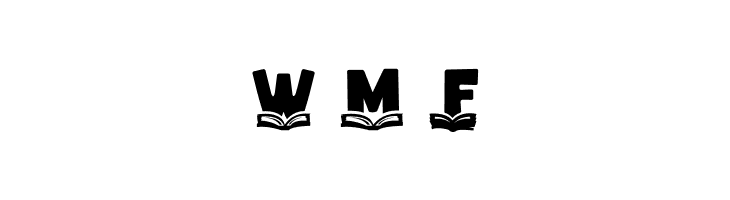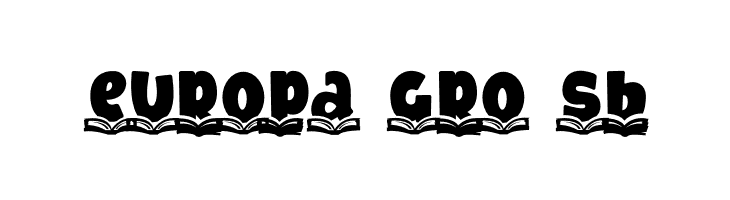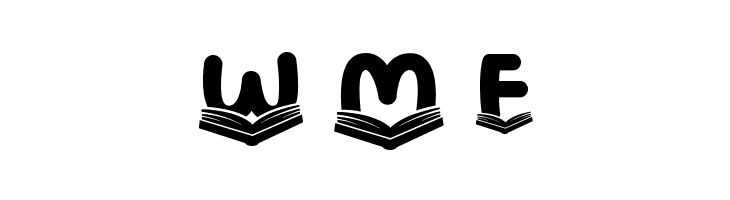
A bold, futuristic font with a geometric and stretched design.
A geometric, layered font with a modern and artistic style.
A bold, decorative font with an educational theme, featuring book symbols beneath each character.
A classic serif font with elegant strokes and pronounced serifs.
A bold, classic serif font with elegant flared serifs and strong presence.
A bold, italic serif font with a classic and elegant style.
An elegant italic serif font with classic and sophisticated appeal.
A modern, geometric font with consistent stroke width and a clean design.
A bold, playful font with book-themed characters, perfect for educational and children's projects.